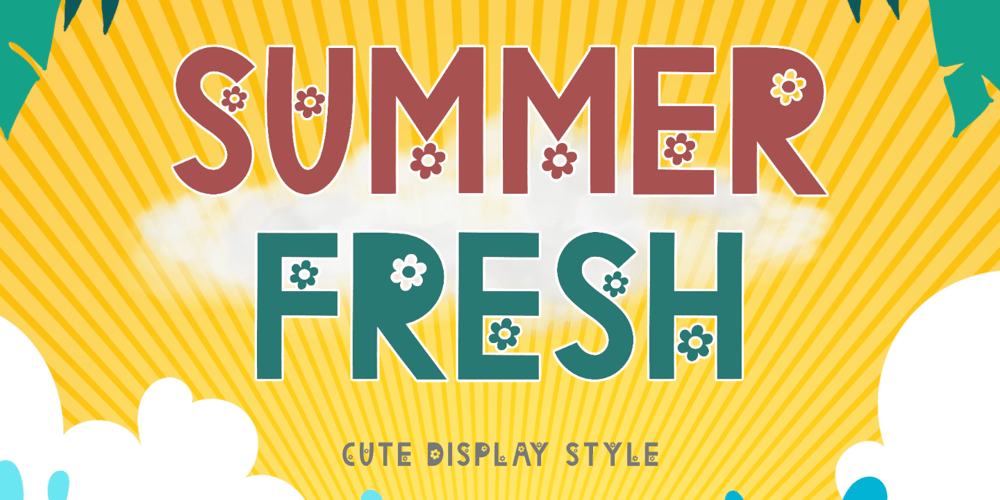
Summer Fresh Font Family was designed by Isroni Yoga Prasetya and published by Yoga Letter. Summer Fresh contains 1 styles and family package options. “Summer Fresh” is a unique and cute display font. This font is equipped with uppercase, lowercase, numerals, punctuations and multilingual support. Very suitable for posters, summer, spring, logos, branding, stickers, SVG, KDP, Procreate, holidays and others.